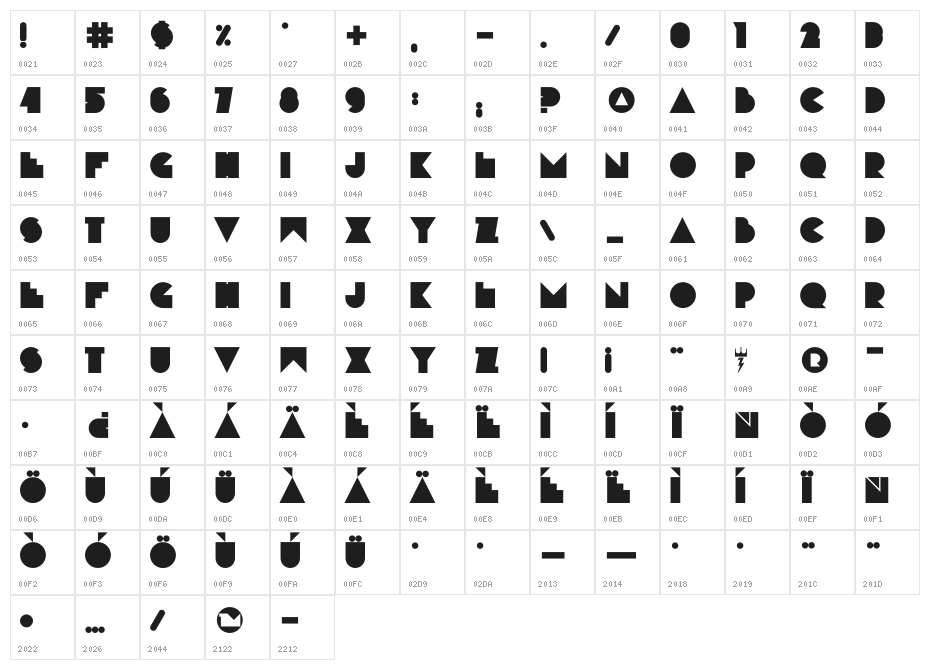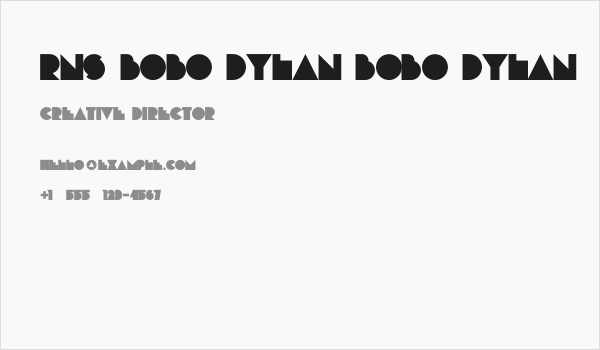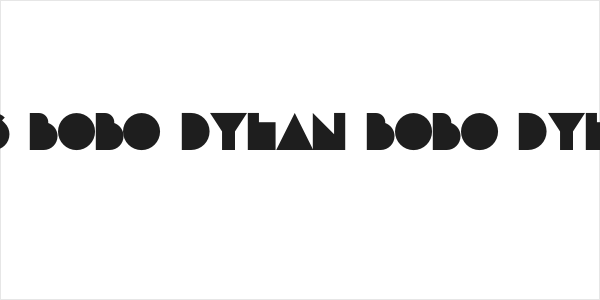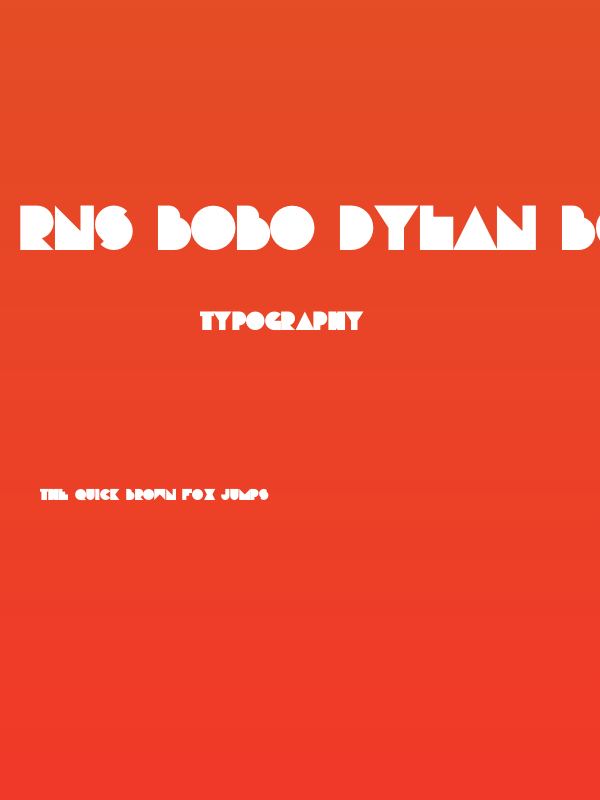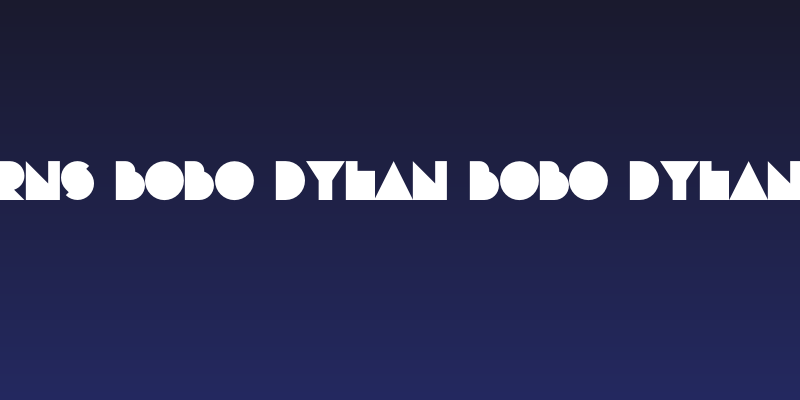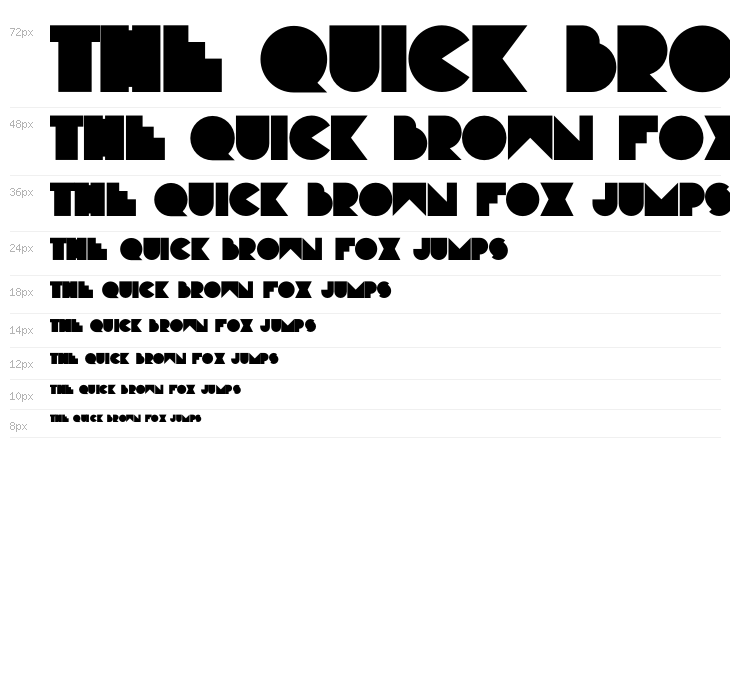
RNS Bobo Dylan Font
RNS Bobo Dylan Description
This font features bold, geometric shapes with a strong emphasis on angular forms and circular elements. The uppercase letters are characterized by sharp angles and solid, block-like structures, while the lowercase letters maintain a consistent geometric style. The numerals are equally bold and follow the same design principles, ensuring uniformity across the character set. Special characters are designed with the same boldness and geometric precision, making them stand out. The overall design is striking and modern, suitable for projects that require a strong visual impact.
| Proposed Projects | Ideal for branding, poster design, album covers, and any project needing a bold, modern aesthetic. |